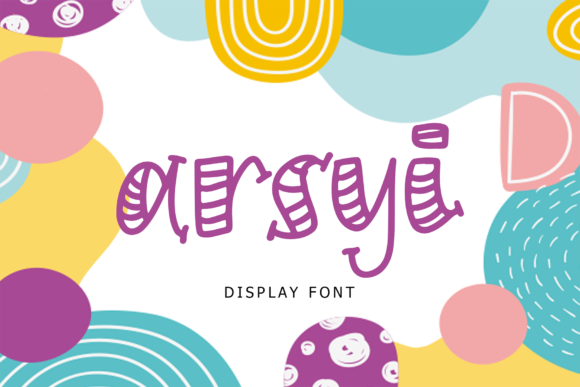
The Arsyi Font: A Quirky Display Font to Bring Your Designs to Life
I’ll never forget the moment I stumbled upon the Arsyi font. I was working on a project for a client who wanted a unique and playful design for their brand. I had spent hours scouring the internet for the perfect font, but nothing seemed quite right. That was until I saw Arsyi – a cute and incredibly unique display font that caught my eye. A bit quirky, this font fits a wide variety of designs, and I just knew it would make my client’s ideas come alive!
My Honest Review of Arsyi
- ✨ Unique and quirky design that’s sure to stand out
- ✅ Highly versatile and can be used for a wide range of designs
- 💫 Perfect for display text, headings, and titles
- 🎉 Easy to read and understand, even at smaller sizes
While I absolutely love Arsyi, there are a few things to keep in mind. 🤔 For example, the font can be a bit tricky to pair with other fonts, so it’s best to stick with a simple, clean font for body text. ⚠️ Additionally, some of the more intricate details may get lost at very small sizes.
The Story Behind Arsyi
Arsyi was designed by a team of creatives who wanted to create a unique and playful font that would bring joy to designers and their clients. The font is inspired by the idea of whimsy and playfulness, and is meant to evoke a sense of fun and creativity. While the designers behind Arsyi are not well-known, their passion and dedication to creating a high-quality font are evident in every detail.
Q: What is Arsyi?
A: Arsyi is a cute and incredibly unique display font that’s perfect for a wide range of designs.
Q: Is Arsyi easy to read?
A: Yes, Arsyi is easy to read and understand, even at smaller sizes.
Q: Does Arsyi support OpenType features?
A: Yes, Arsyi supports OpenType features, including stylistic alternates and glyphs.